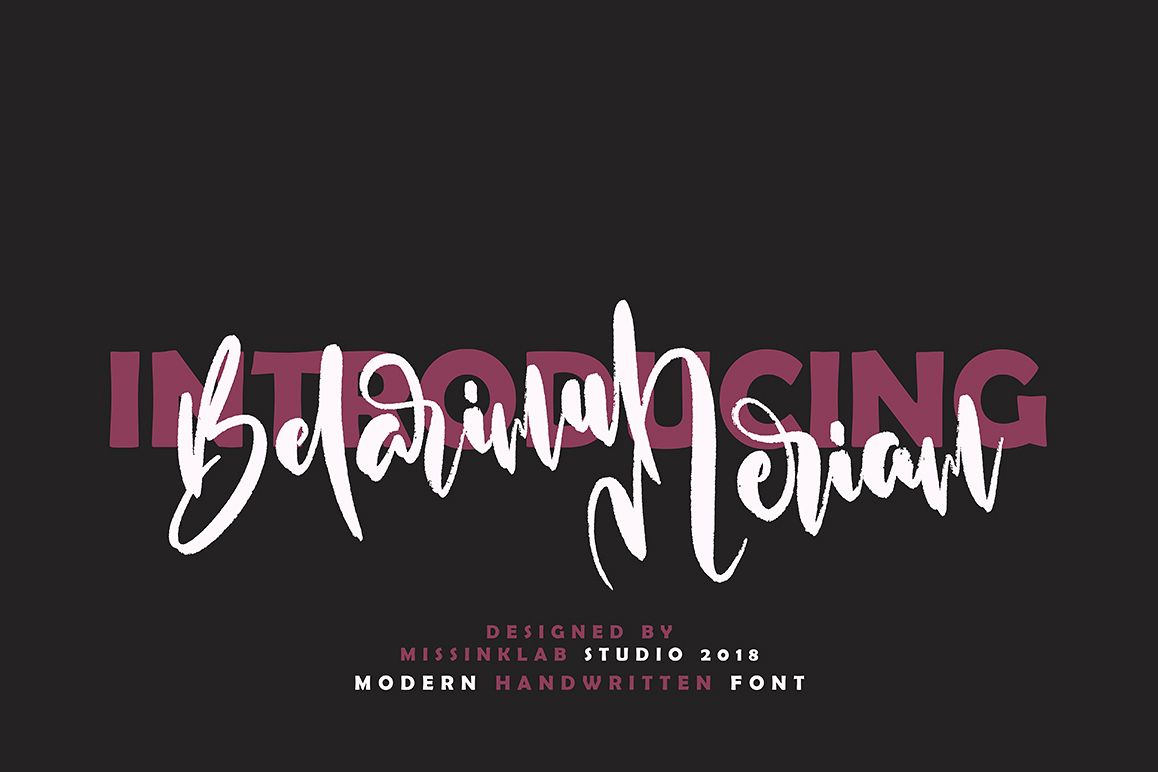
Belarimul Meriam
Belarimul Meriam modern brush script font with modern style, this font will perfect for many different project ex: quotes, logo, blog header, poster, wedding, banding, fashion, apparel, letter, invitation, stationery, etc... .